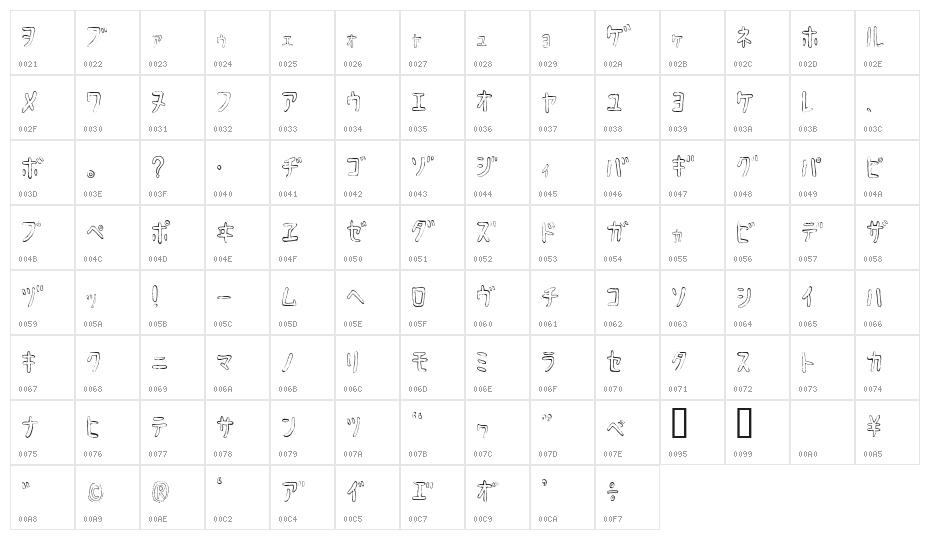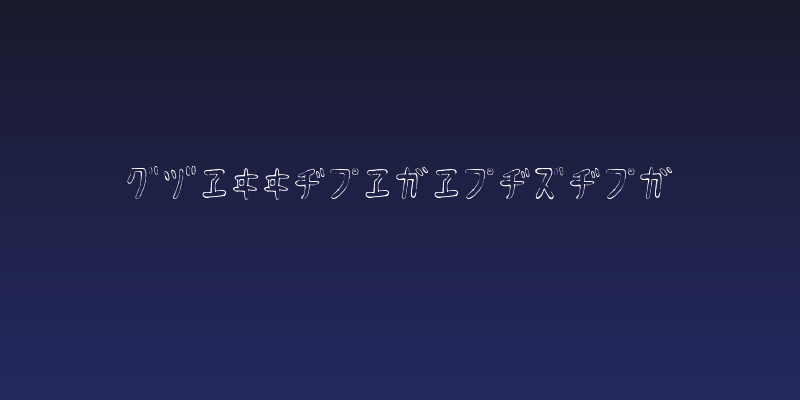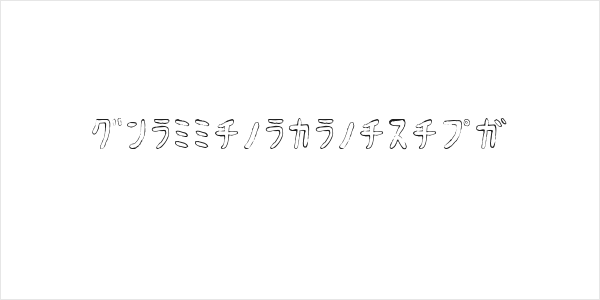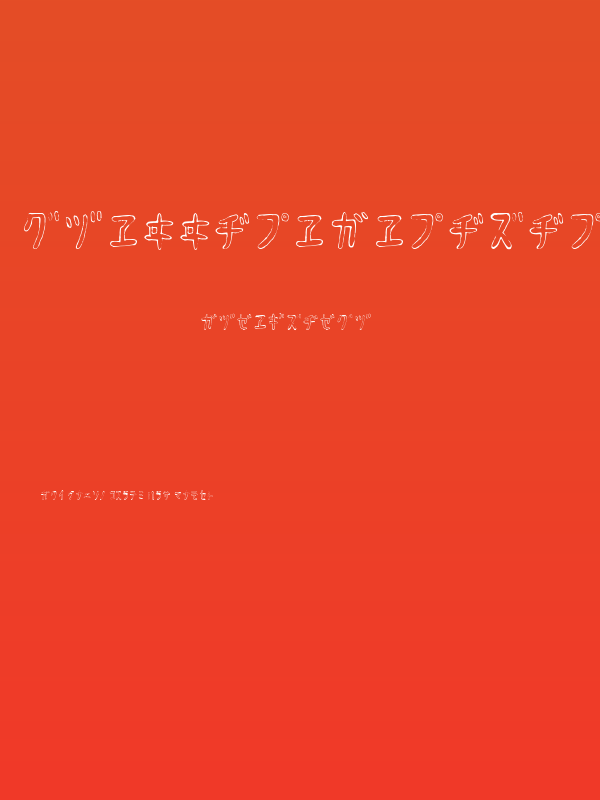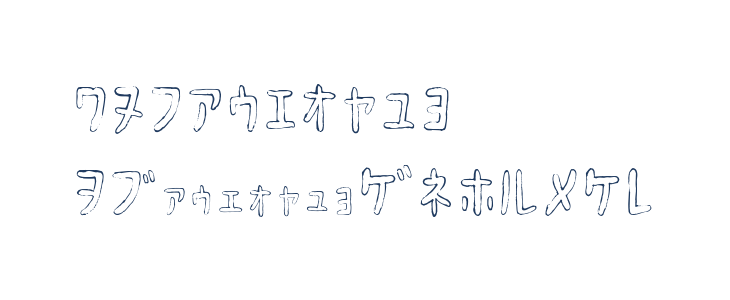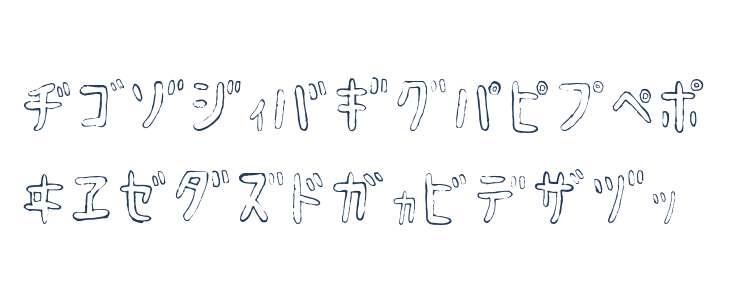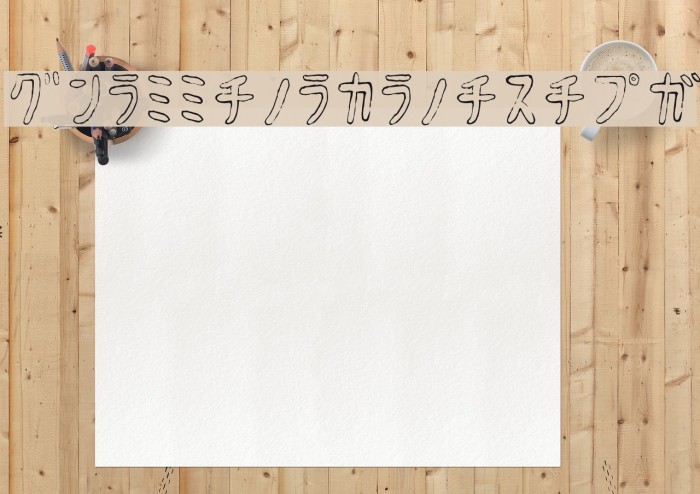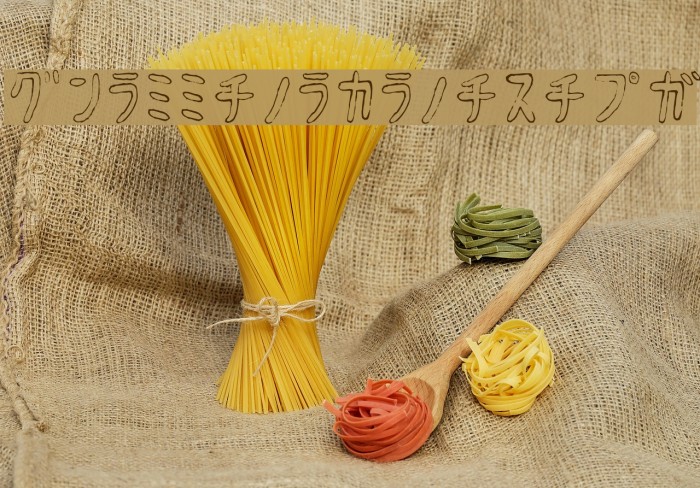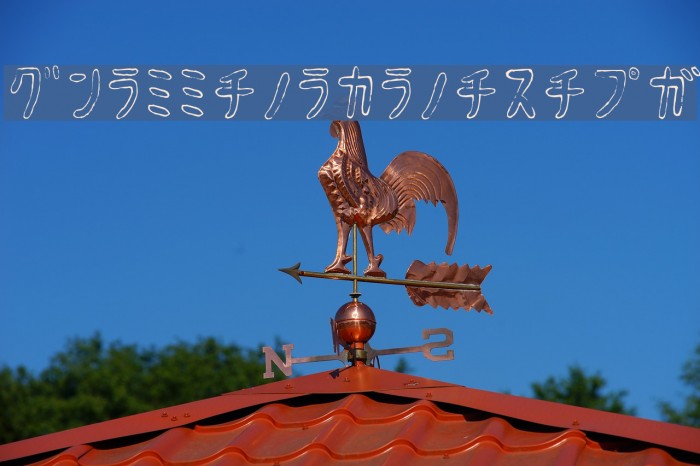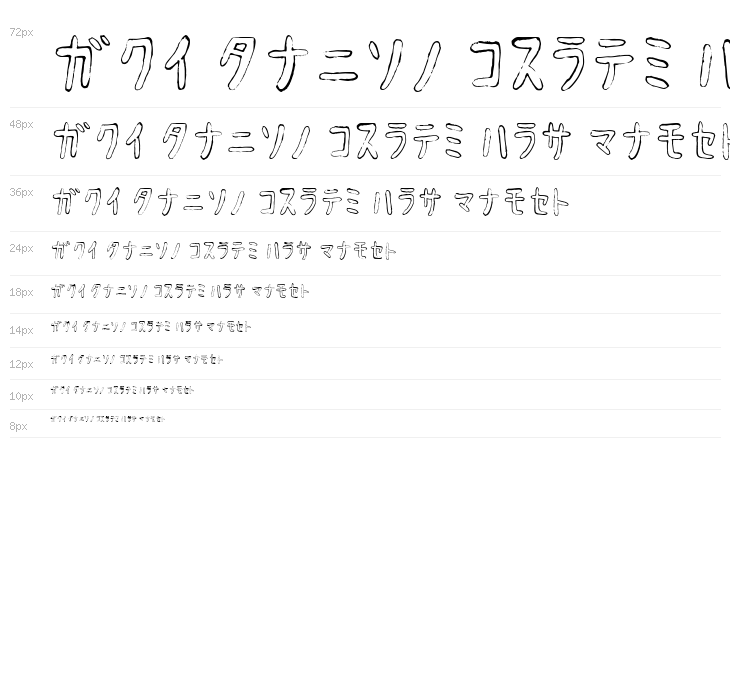
HyonnakotokaraKT Font
HyonnakotokaraKT Description
This font features a playful and whimsical style, characterized by its hand-drawn appearance. The characters have a slightly uneven stroke, giving them a casual and informal look. The lines are thin and exhibit a sketch-like quality, which adds to the font's charm. The overall design is simple yet expressive, making it suitable for creative and artistic projects. The font maintains a consistent height across characters, ensuring readability while retaining its unique aesthetic.
| Use Case | Headlines, Artistic projects, Informal text |
| Proposed Projects | Ideal for children's books, creative posters, greeting cards, and artistic branding. |